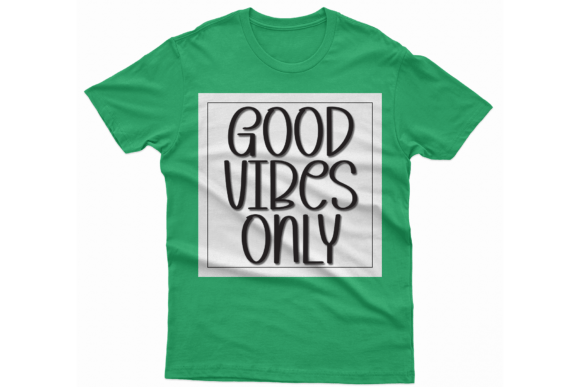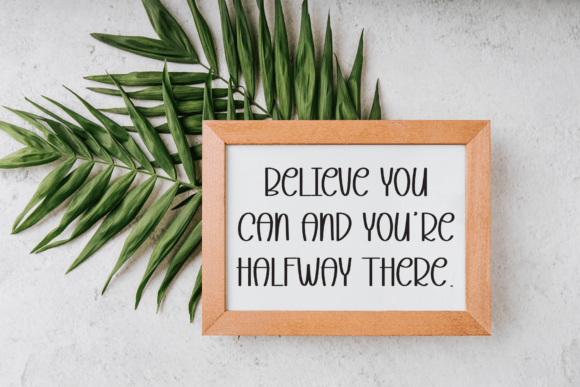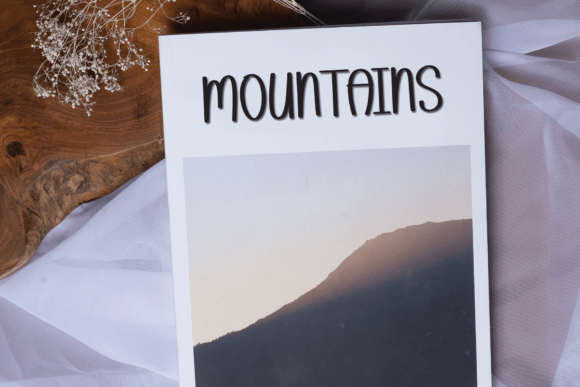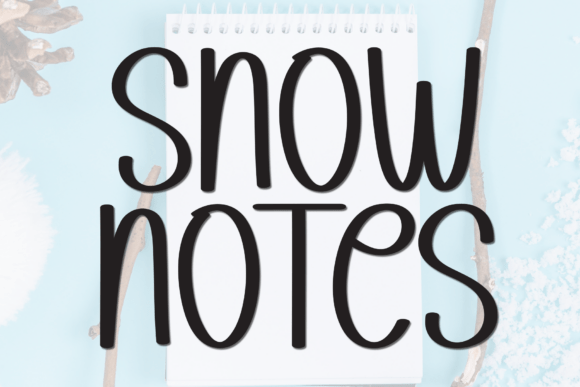
Introduction to Snow Notes Font
Immerse yourself in the charming simplicity of our freshly designed typeface aptly named β€œSnow Notes”.
This handwritten display font brings a delightful combination of cute and fun – a perfect choice that breathes life into your wedding invitations, cards, and various other designs that crave that ultimately playful flair Exuding a fun yet elegant vibe, this font embodies a beautifully unique way to express your creativity.
Key Features of Snow Notes Font
Why Choose Snow Notes Font?